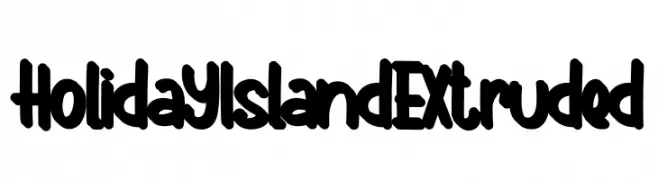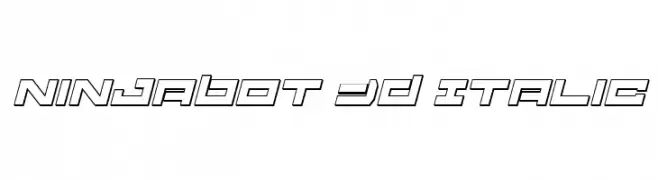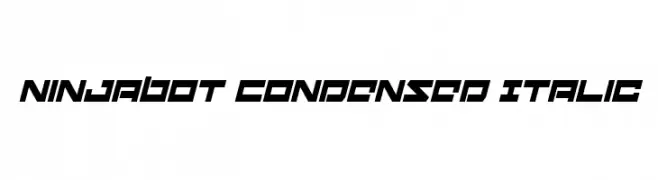
( Fonts by Gilang Ternadho )
A playful, hand-drawn font with a casual and friendly vibe.
( Fonts by fsuarez913 )
A bold, playful font with rounded, bubbly characters perfect for fun and whimsical designs.
( Fonts by Figuree Studio )
A futuristic, angular font with a bold and geometric style.
( Fonts by Skiiller Studio )
A playful, bold font with a hand-drawn, casual style.
( Fonts by Nikko W )
A bold, 3D geometric font with a strong shadow effect.